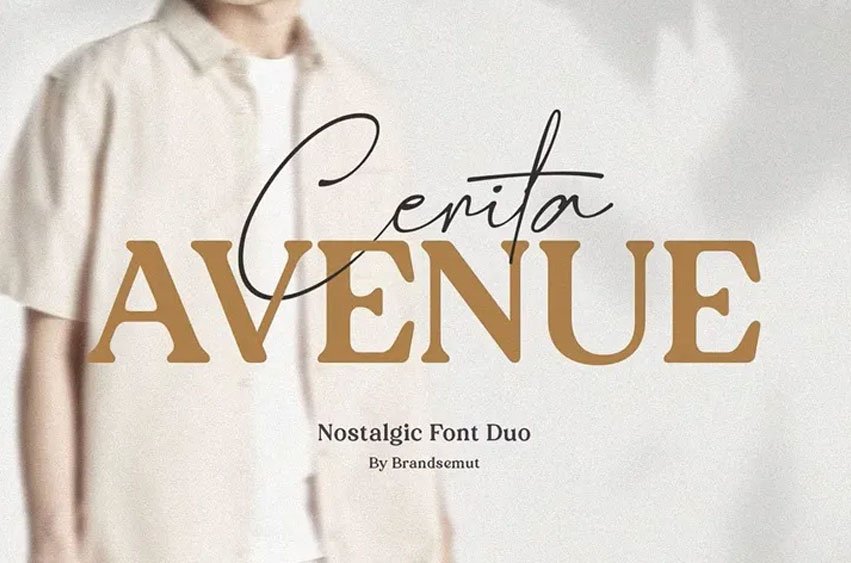
Cerita Avenue Font is an elegant font duo blending a serif typeface and a script that beautifully work together. It is created to be used hand in hand. It’s great for headings, branding, logos, magazines, invitations, packaging, and more.
This OpenType typography is fully equipped with alternate characters, ligatures, punctuation, numbers and multilingual support. This gives your designs flexibility, beauty and a professional finish that stands out in both print and digital projects.